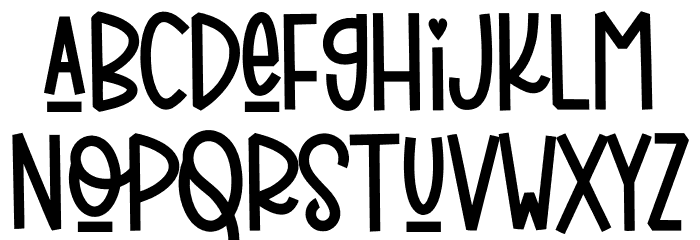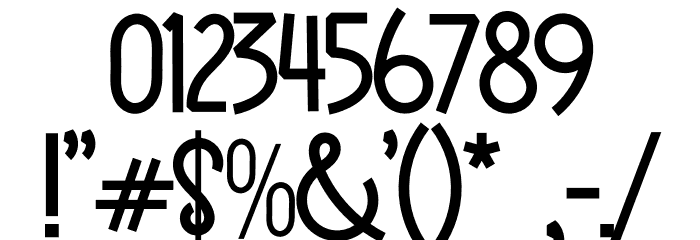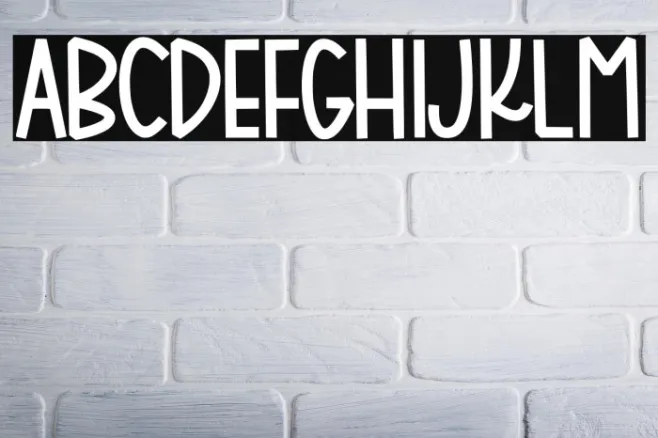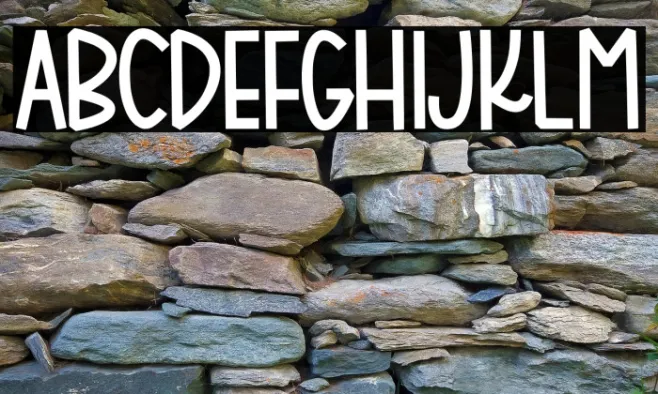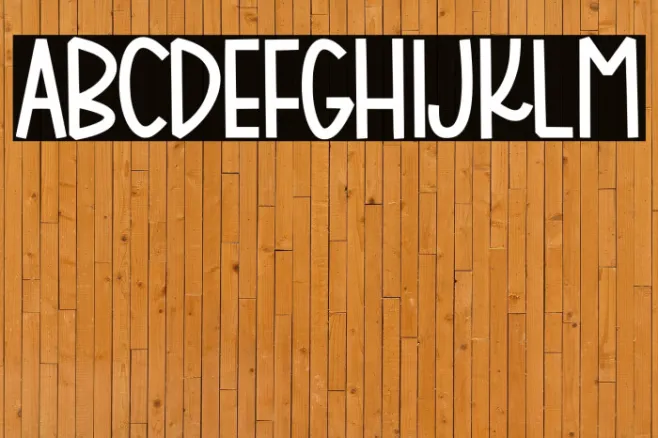
Holiday Planner Font
This font features a playful and bold style with a handwritten feel. The characters are tall and slightly condensed, giving a unique and quirky appearance. The uppercase letters are uniform in height, while the lowercase letters maintain a consistent style with slight variations in stroke. The numbers are clear and legible, matching the overall aesthetic. Special characters are creatively designed, adding to the font's charm. The strokes are thick and consistent, providing a strong visual impact.
A playful, bold, and handwritten-style font with a quirky charm.
- Font: Holiday Planner
- Proposed Projects: Ideal for children's books, playful branding, party invitations, and creative posters.